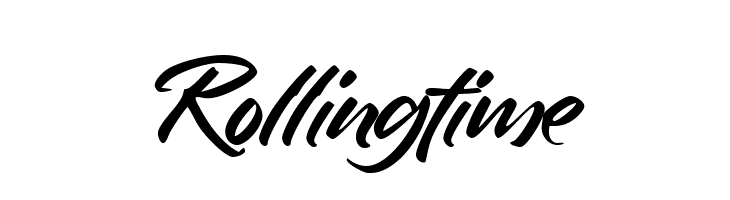
• Rollingtime шрифт
A bold, cursive handwritten font with dynamic and expressive strokes.
• Rollingtime шрифт
A flowing, elegant script font with a natural handwriting style.